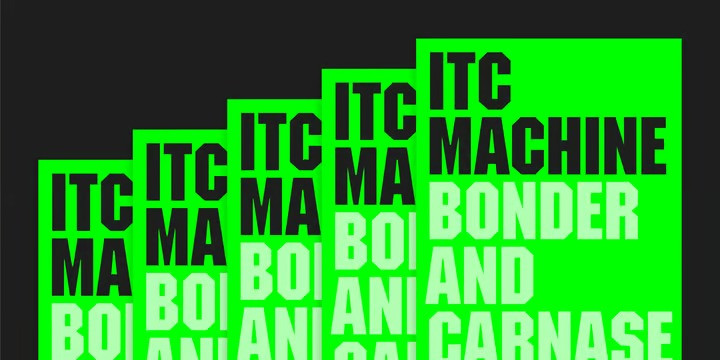
ITC Machine Font
ITC Machine Sans Serif font was created by the design team of Bonder and Carnase, a bold uppcase alphabet whose geometric letters add strength to any presentation. ITC Machine font is excellent for signage and other display applications.